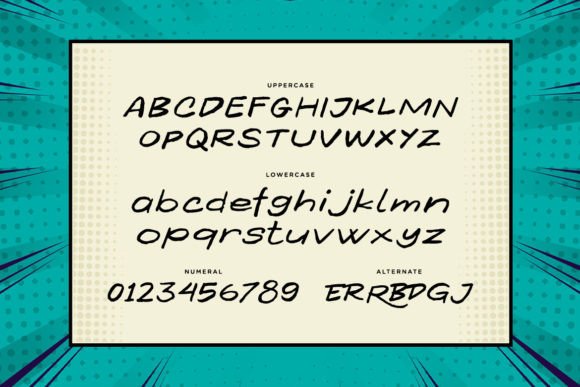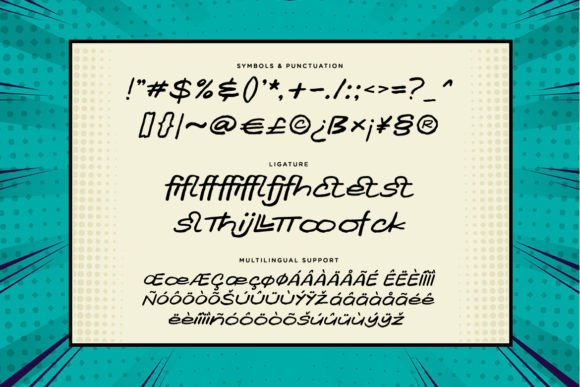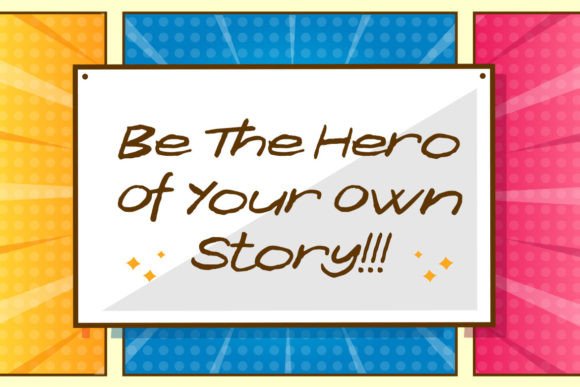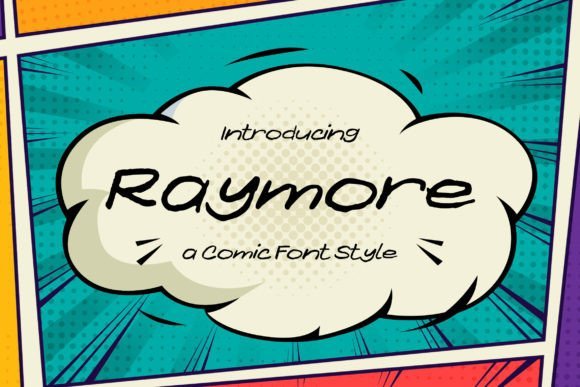
Introduction to Raymore Font
Raymore is a simple comic handwritten font with a unique style.
Get inspired by its unique charm, and turn any design project into a true standout .
Key Features of Raymore Font
Why Choose Raymore Font?
Raymore Font offers exceptional quality and versatility, making it a valuable addition to your design toolkit. Whether you’re creating for personal projects or commercial use, Raymore Font delivers professional results.